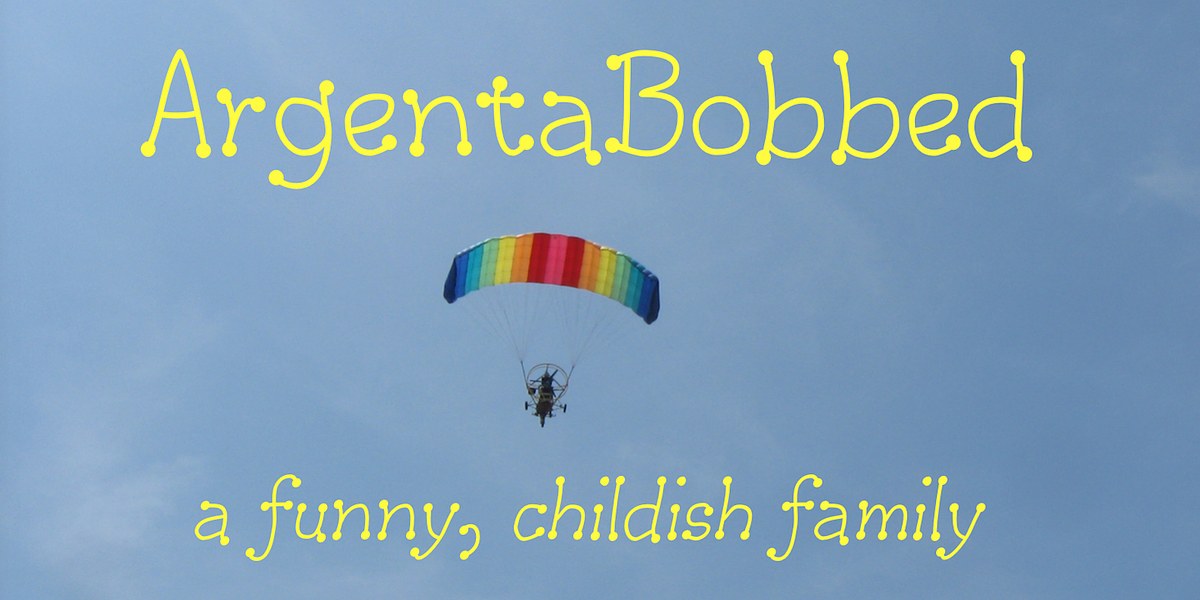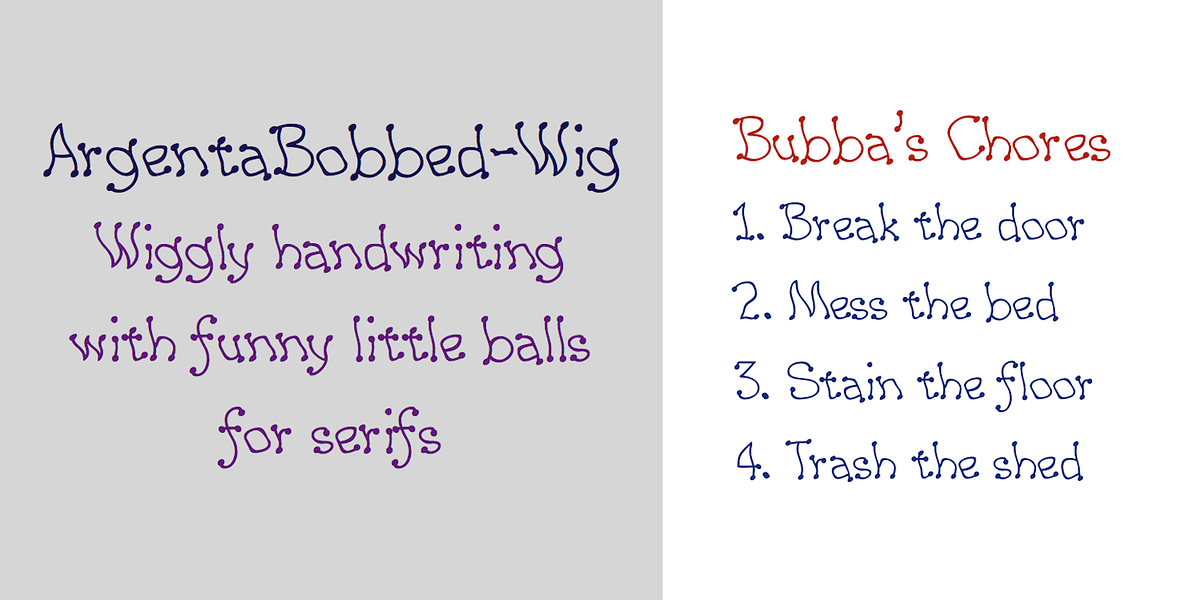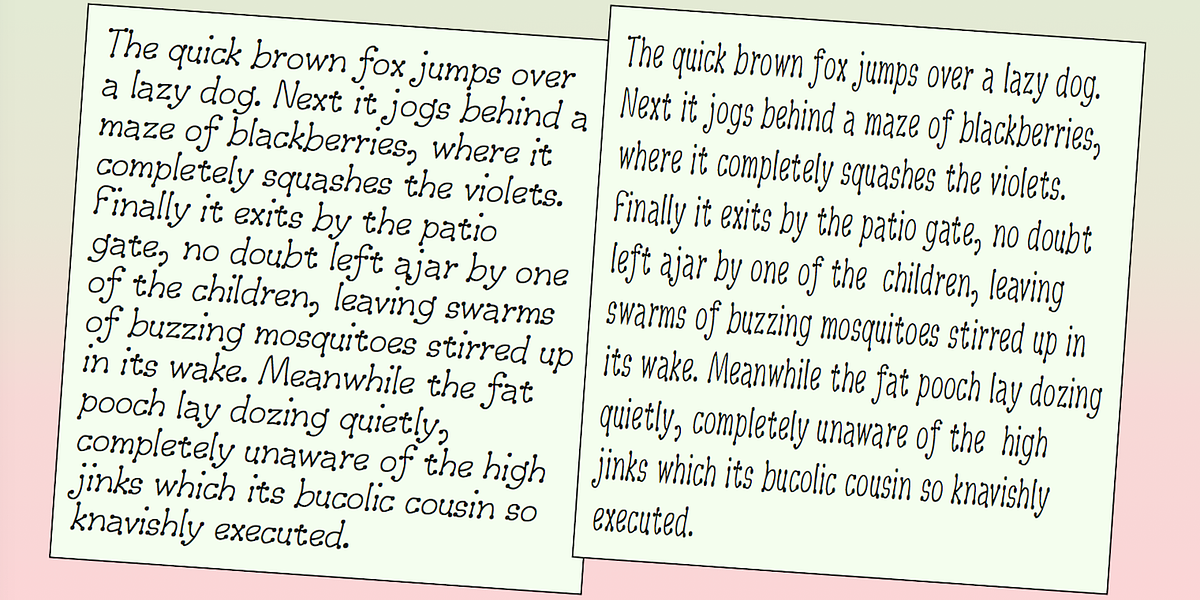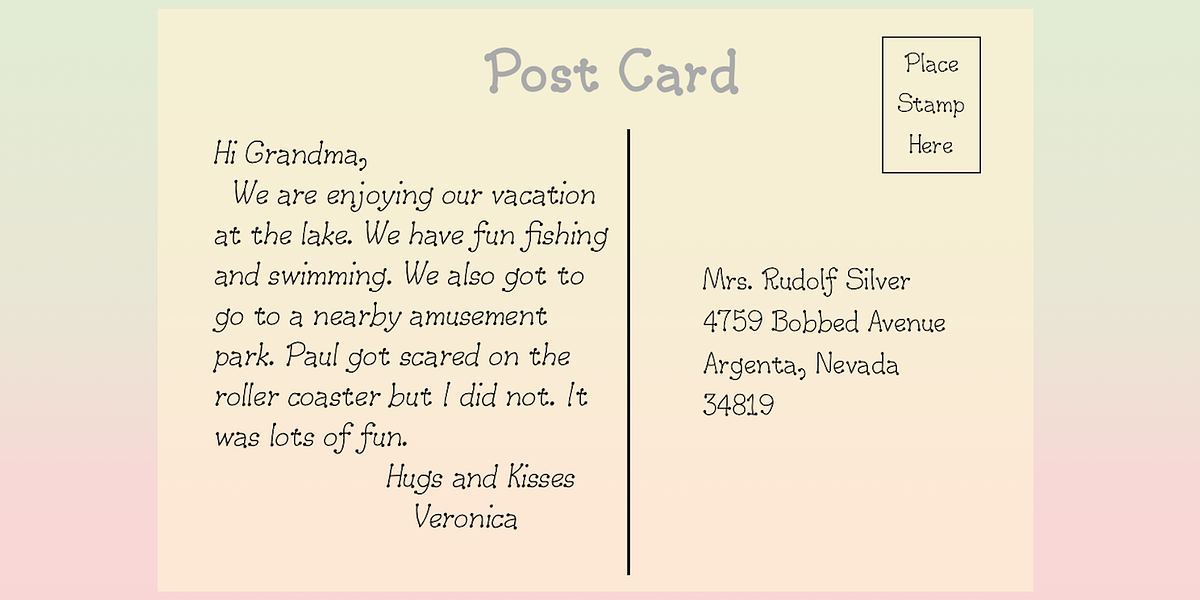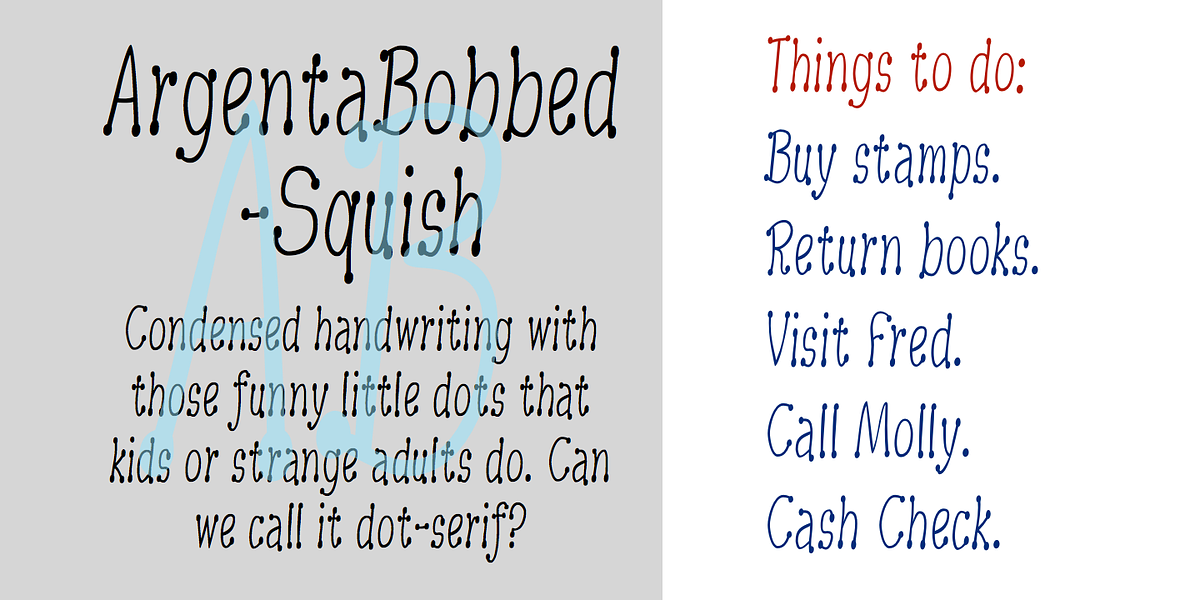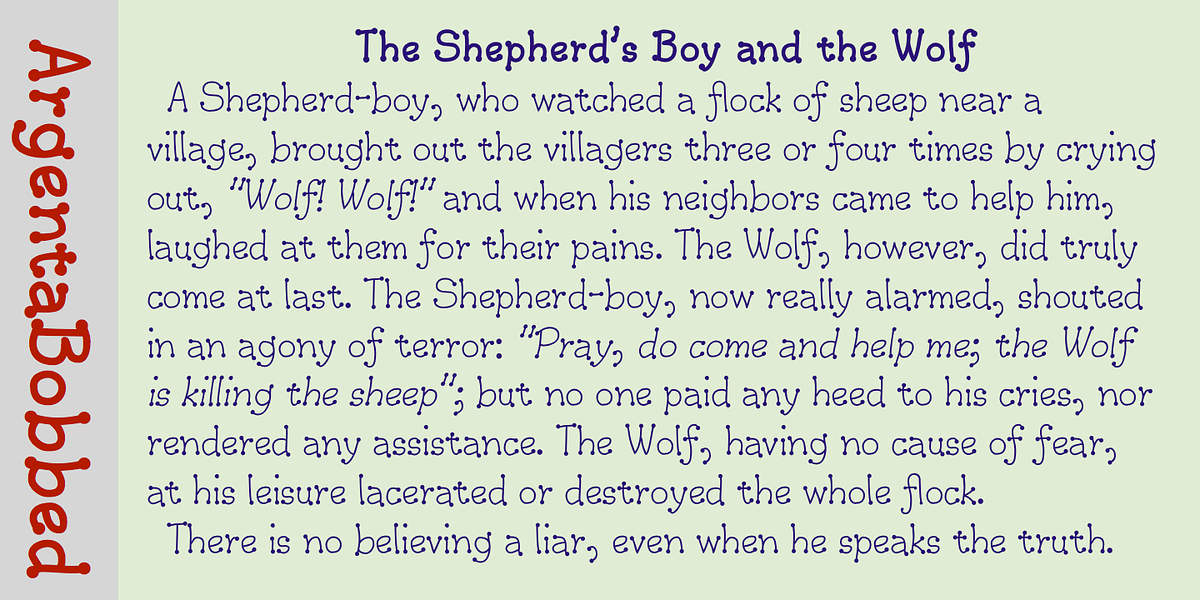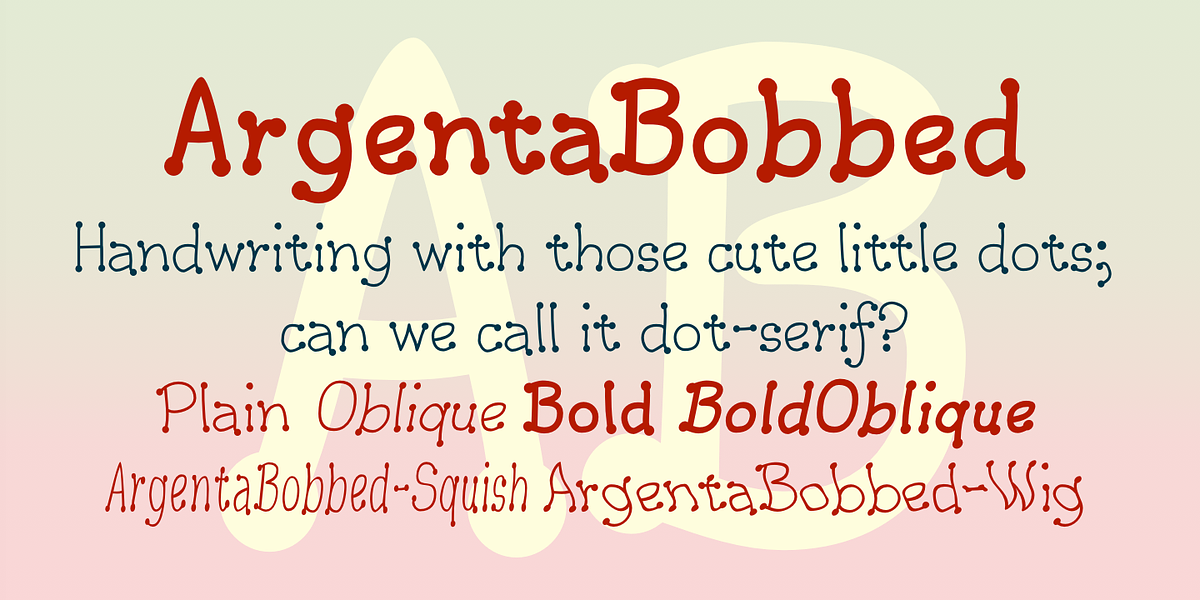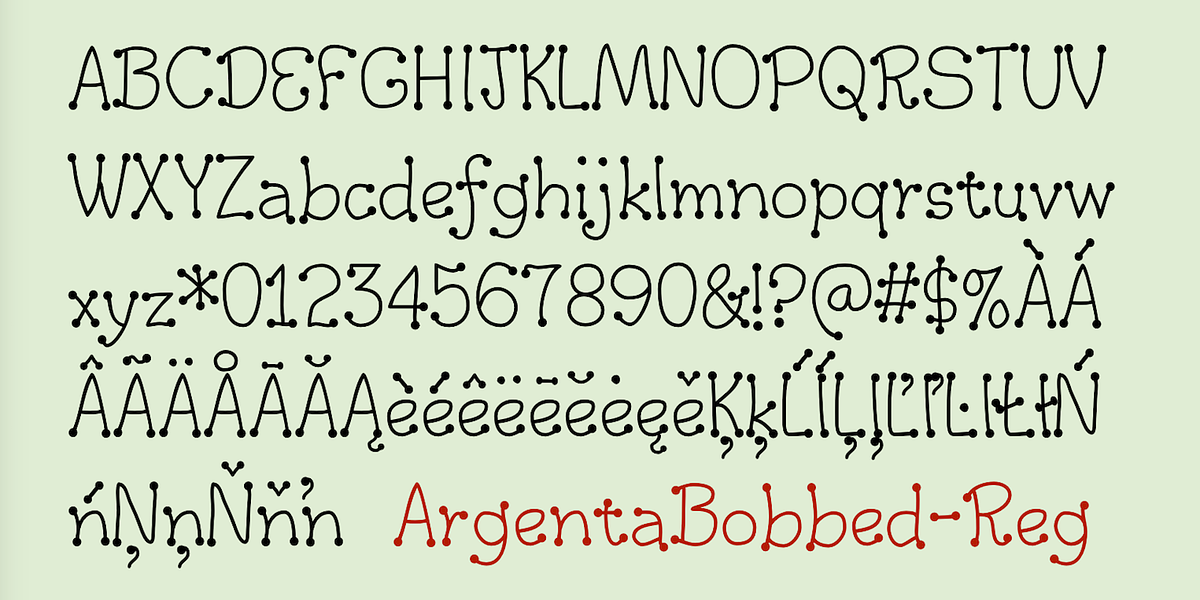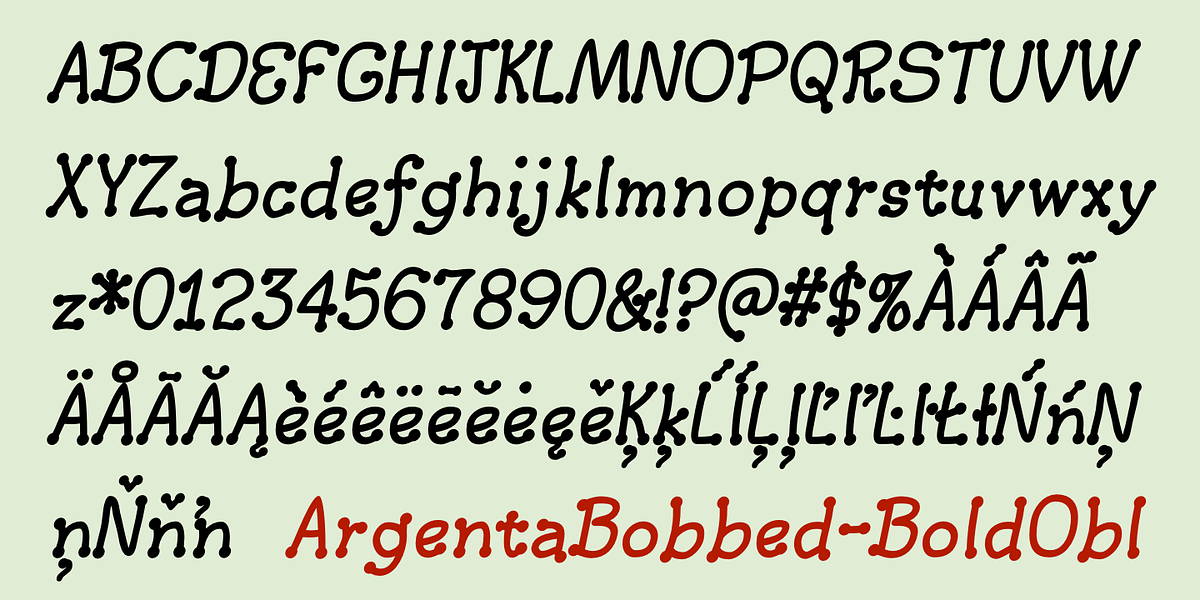
ArgentaBobbed
ArgentaBobbed is a playful handwritten font characterized by its casual script style and unique dot serifs. The font family offers six members, including plain and bold weights with oblique styles. Additionally, there are two variants: ArgentaBobbed-Wig, a squiggly handwriting style with dots, and ArgentaBobbed-Squish, a condensed handwriting style with dots.